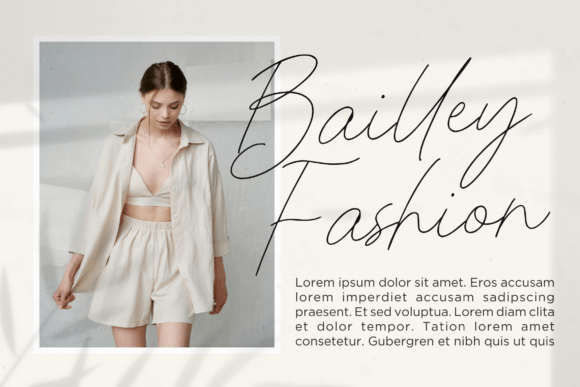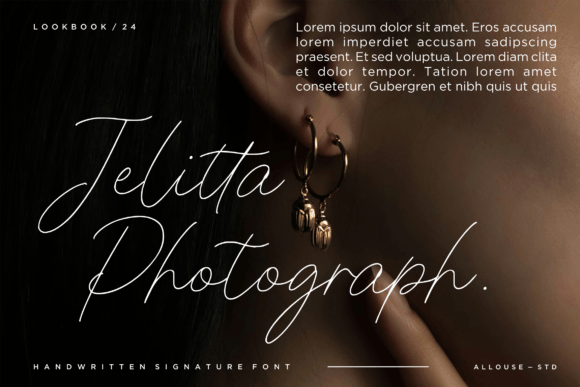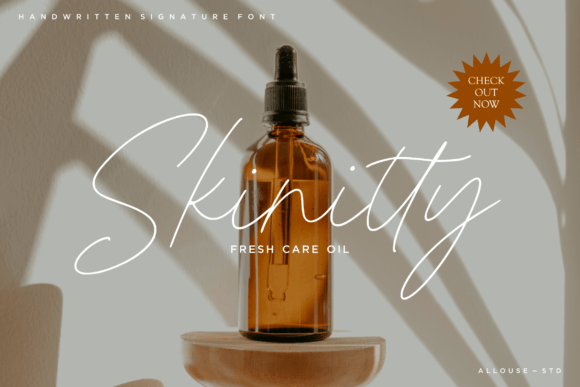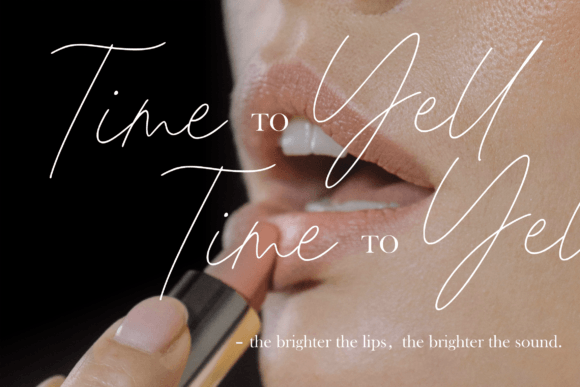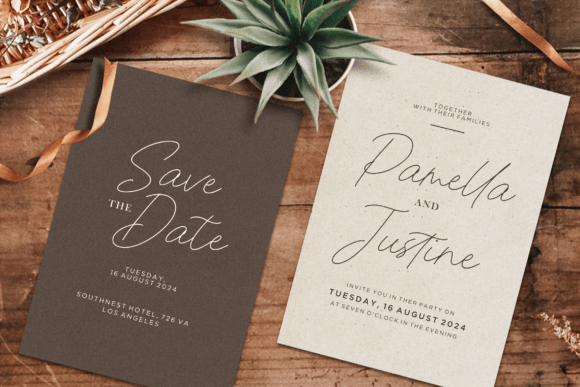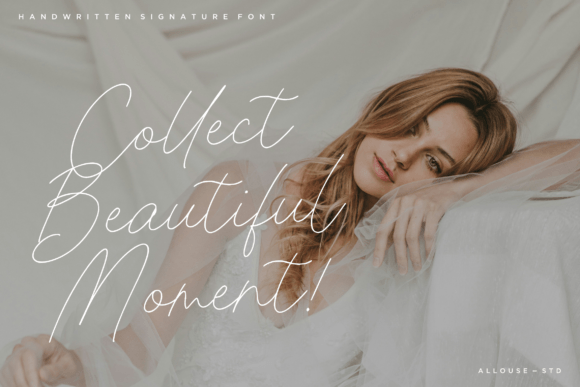
Introduction to Jemaritta Signature Font
Jemaritta Signature A Handwritten Signature Font Jemaritta Signature is perfect for product packaging, branding projects, megazine, social media, weddings, or just used to express words above the background.
Jemaritta Signature A Handwritten Signature Font Jemaritta Signature is perfect for product packaging, branding projects, megazine, social media, weddings, or just used to express words above the back
Key Features of Jemaritta Signature Font